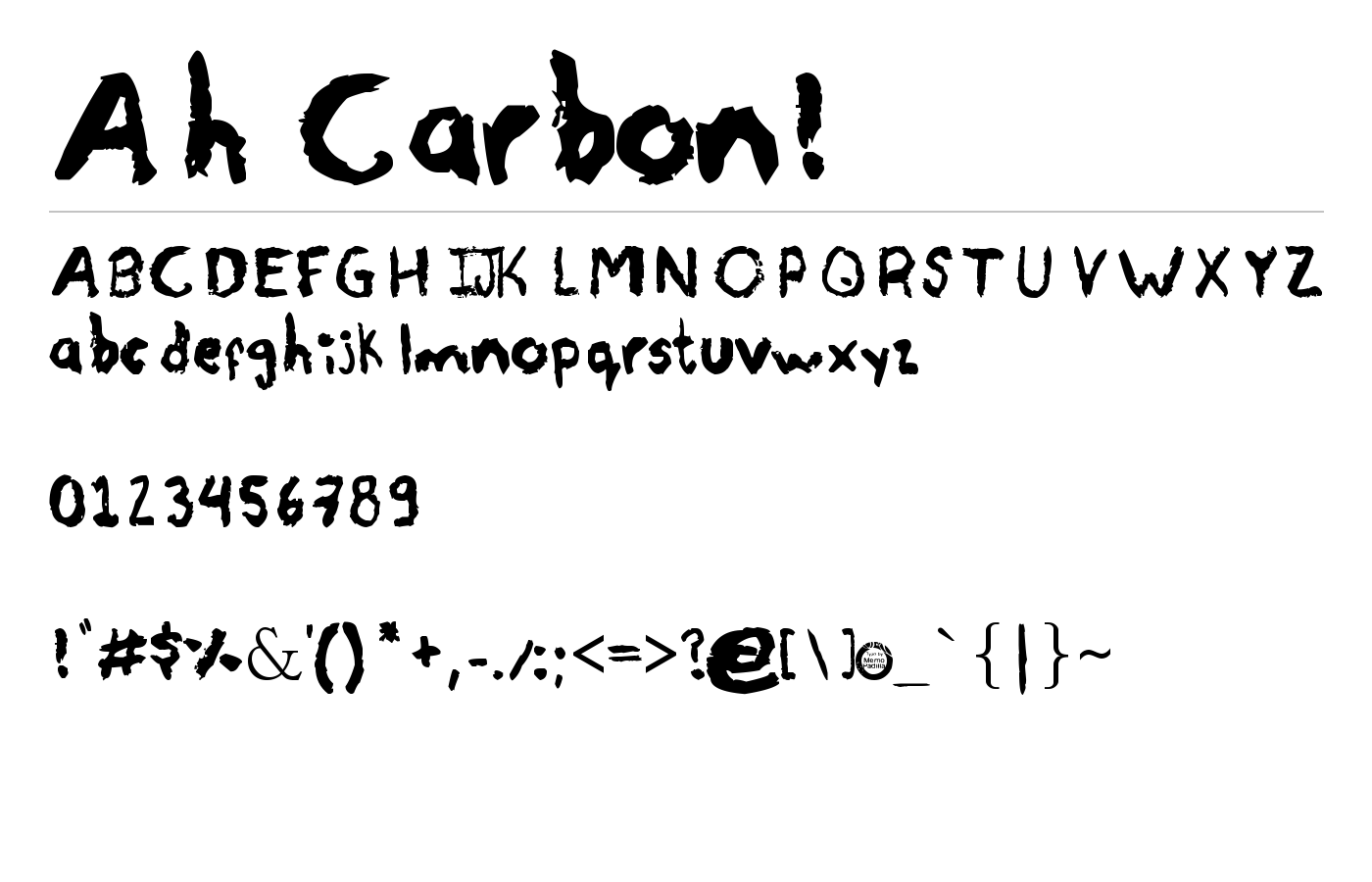
Ah Carbon! is a bold, rough-edged sans serif font that combines an irregular, hand-drawn style with a gritty texture, giving it a raw and organic feel. Its uneven strokes and distressed appearance make it perfect for designs seeking an edgy, artistic, or rebellious vibe, ideal for posters, alternative branding, or creative headlines that want to stand out with personality.
Ah Carbon! Font
About Ah Carbon! Font